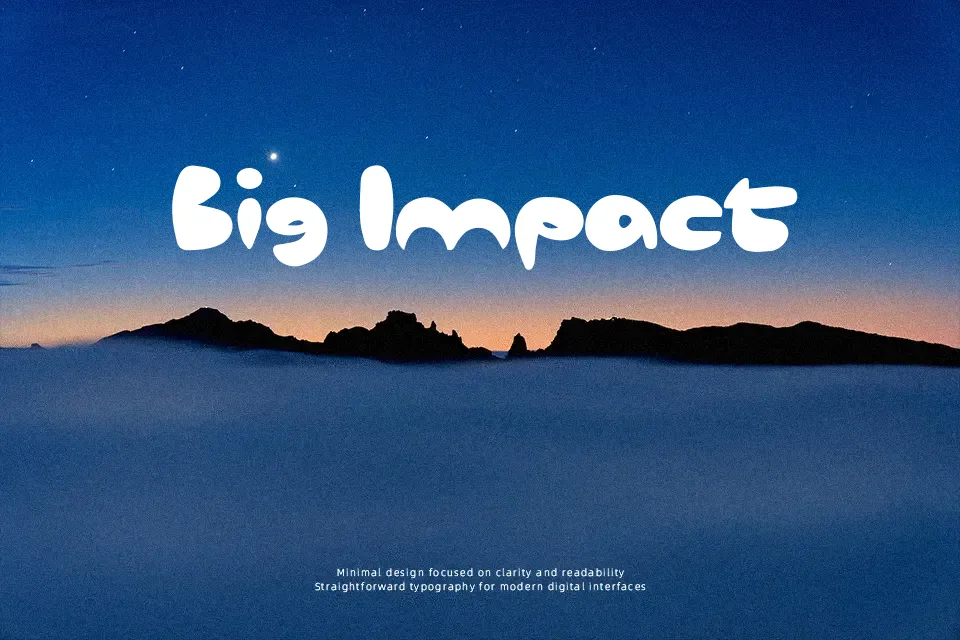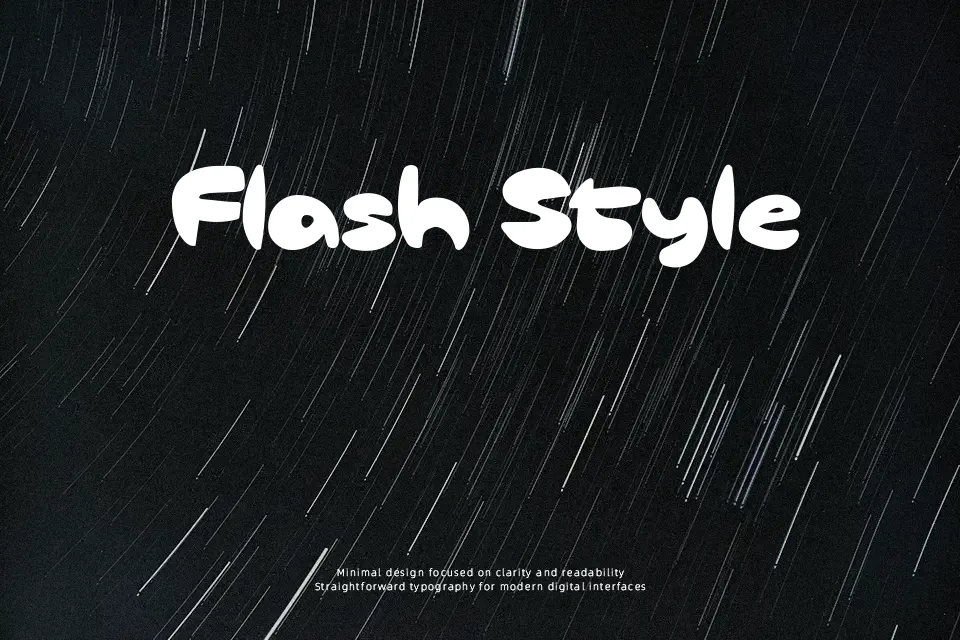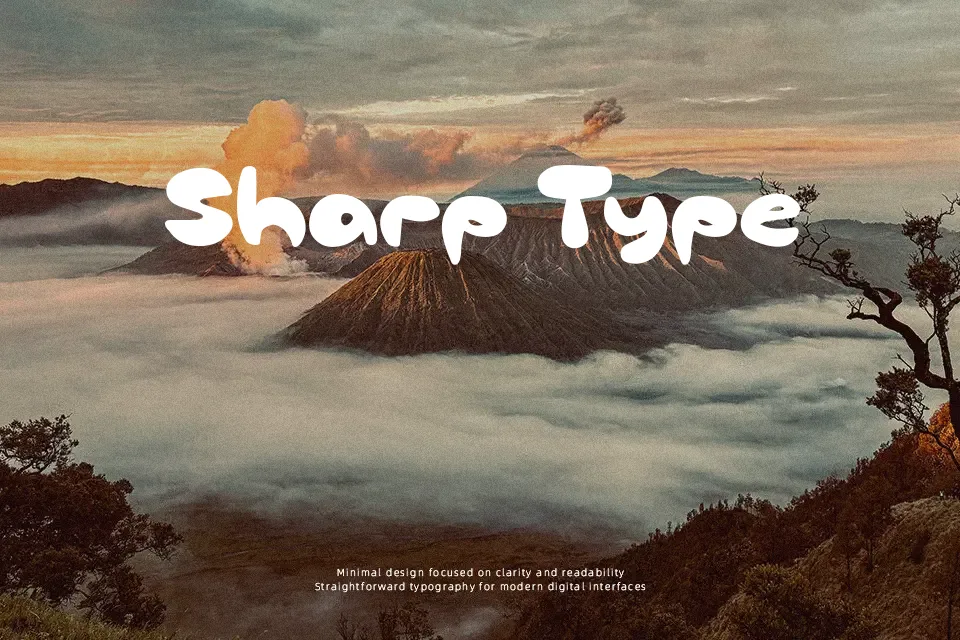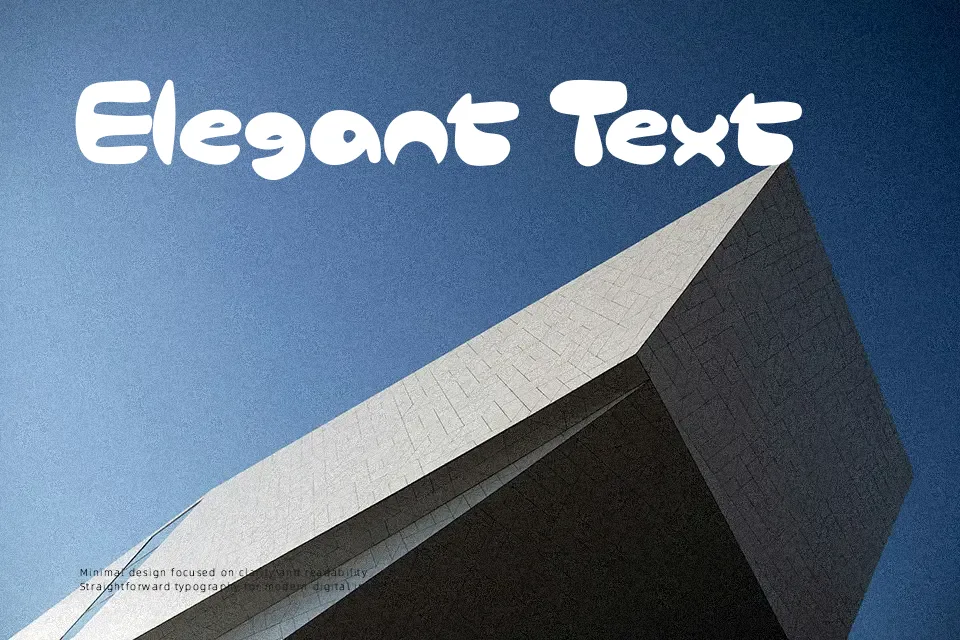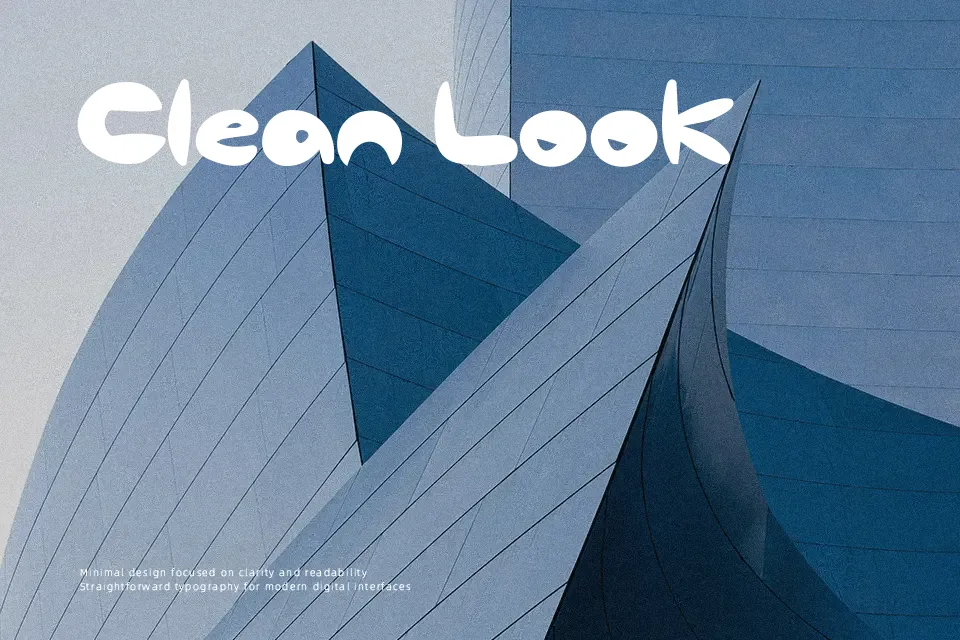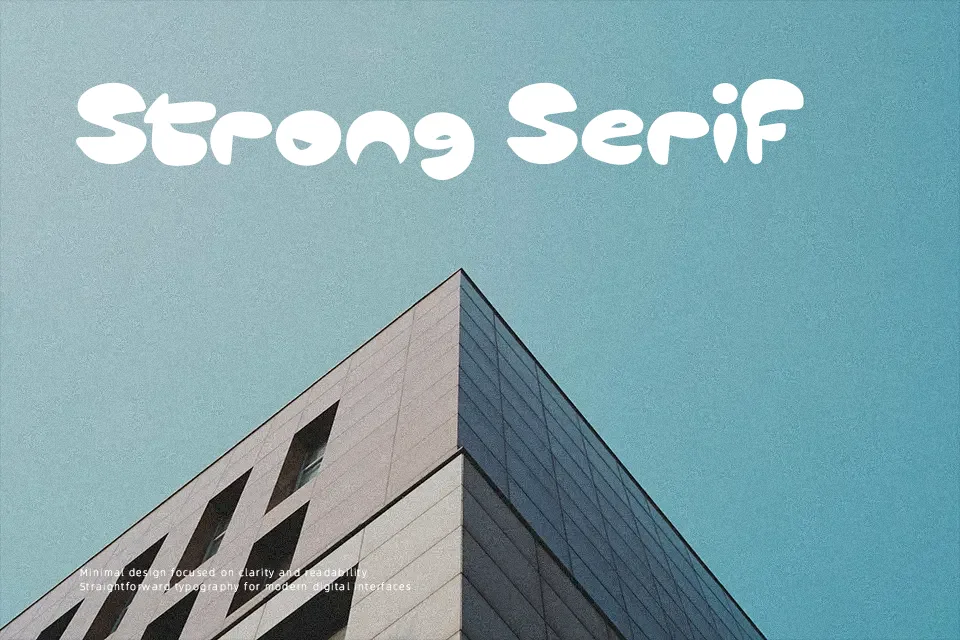
Typoghost Font
Typoghost uses chunky, rounded forms and a deliberately playful display rhythm that gives short words immediate visual character. The letterforms appear broad and weighty, with smooth curves and compact internal spaces that keep headlines noticeable at larger sizes. Its cartoon styling works naturally for children’s designs, informal posters, game-inspired graphics, and expressive product labels. The heavy construction helps individual characters hold their shape in large display settings, but the dense, decorative forms become less comfortable in small copy or extended passages. It is a practical choice when a title needs a friendly, exaggerated tone rather than neutral reading performance.
Best For: children’s event posters,game-inspired graphics,playful product packaging,short social media headlines
Not Ideal For: long paragraph text,small interface labels,formal business documents,dense editorial layouts
Perfect for gaming, kids, and packaging, with a bold and cartoon style.